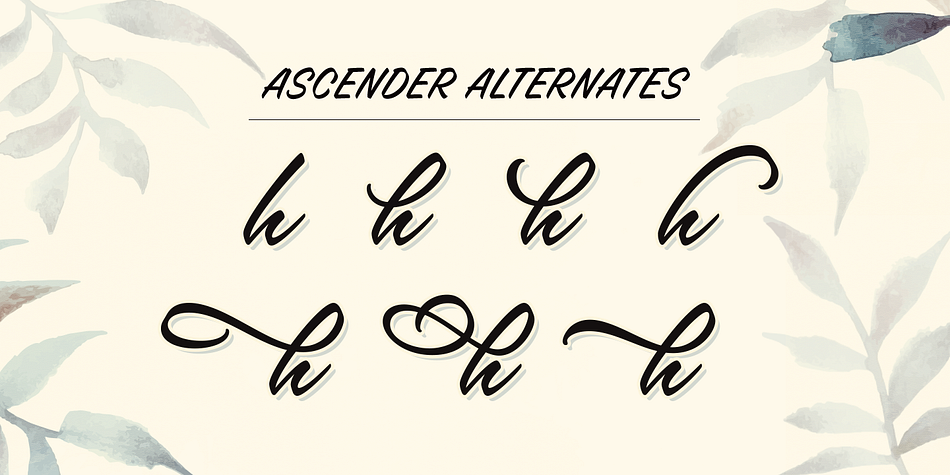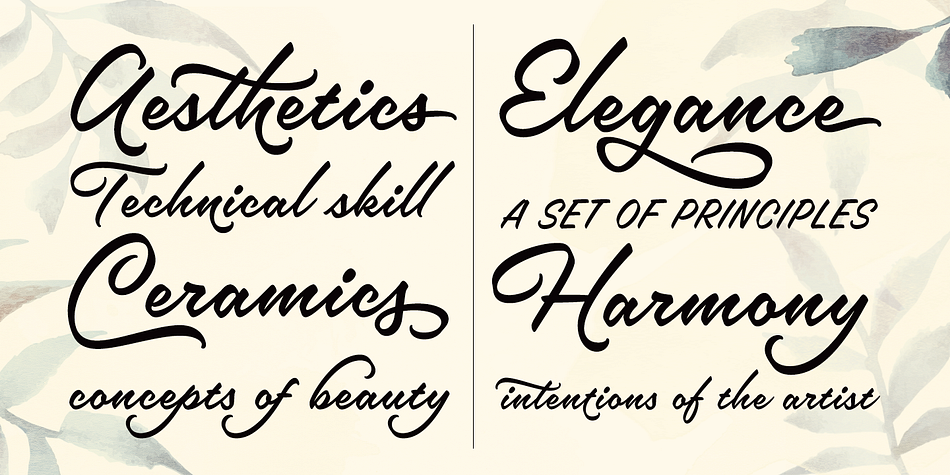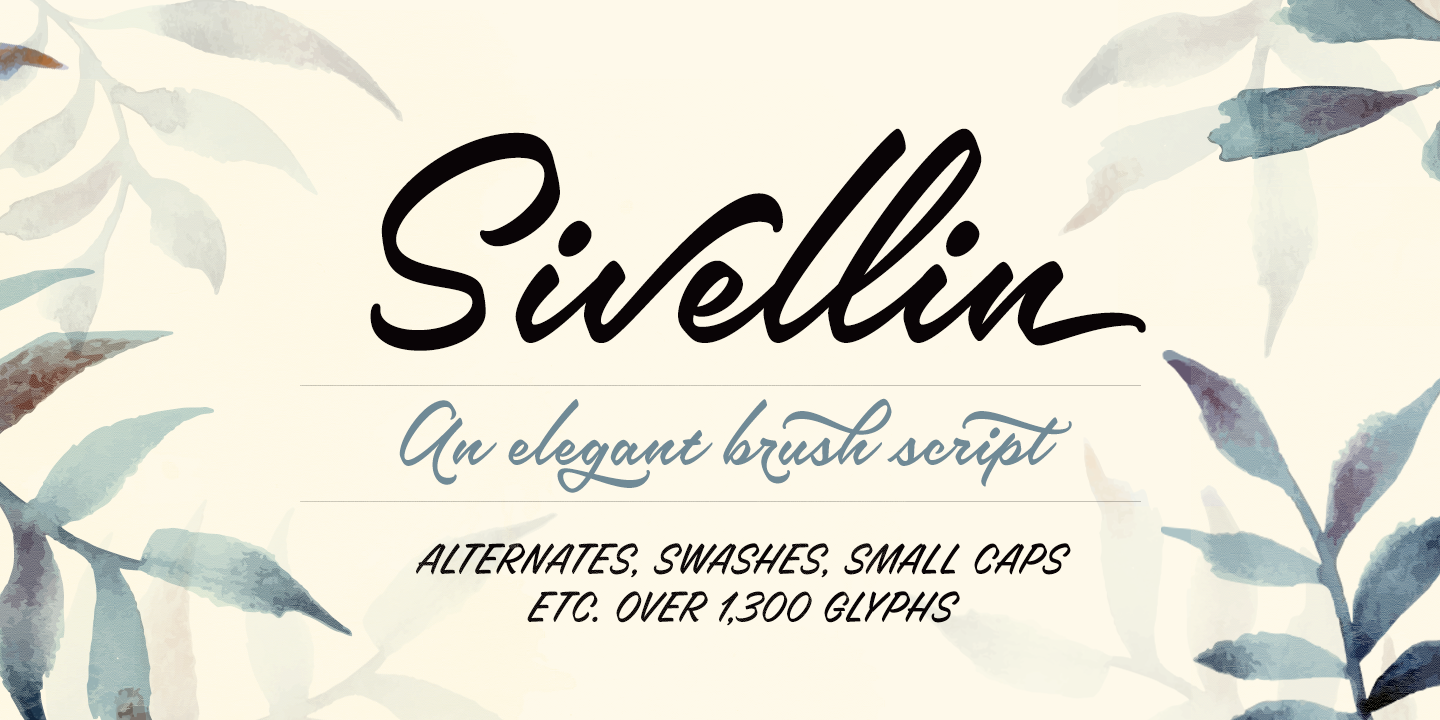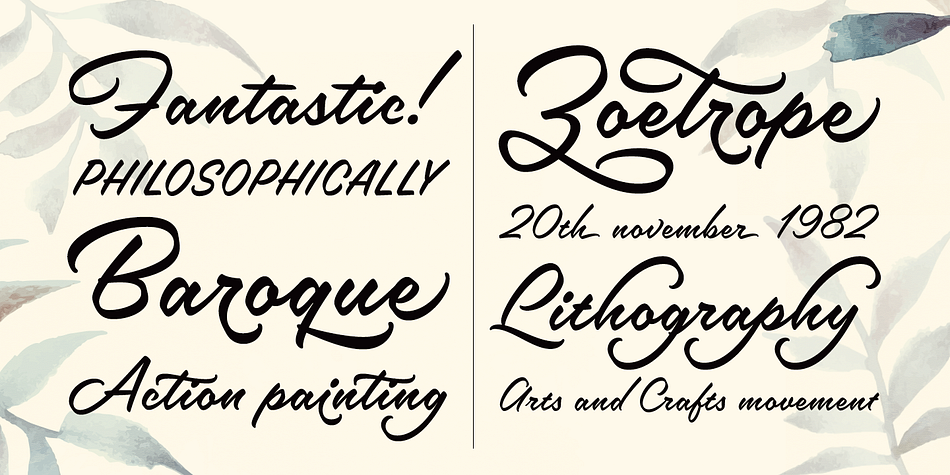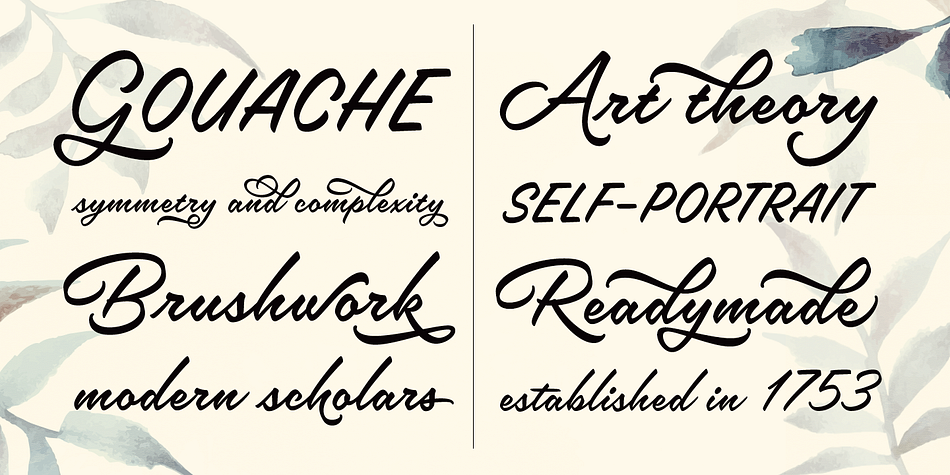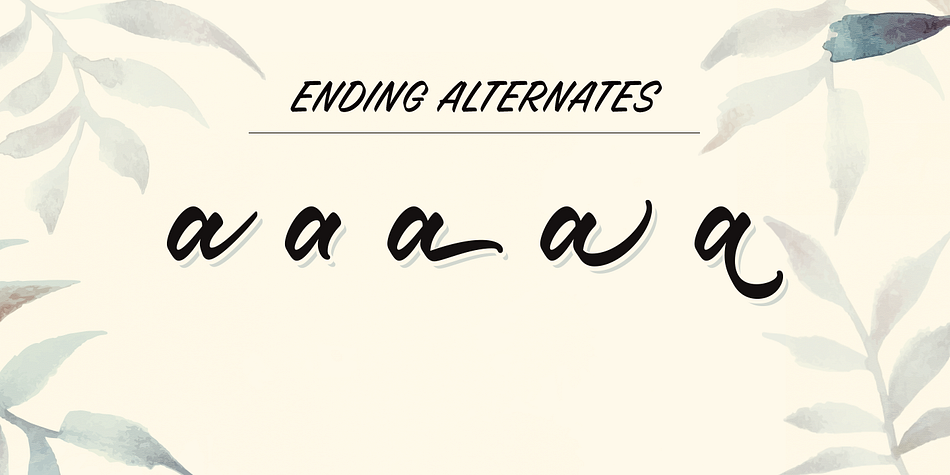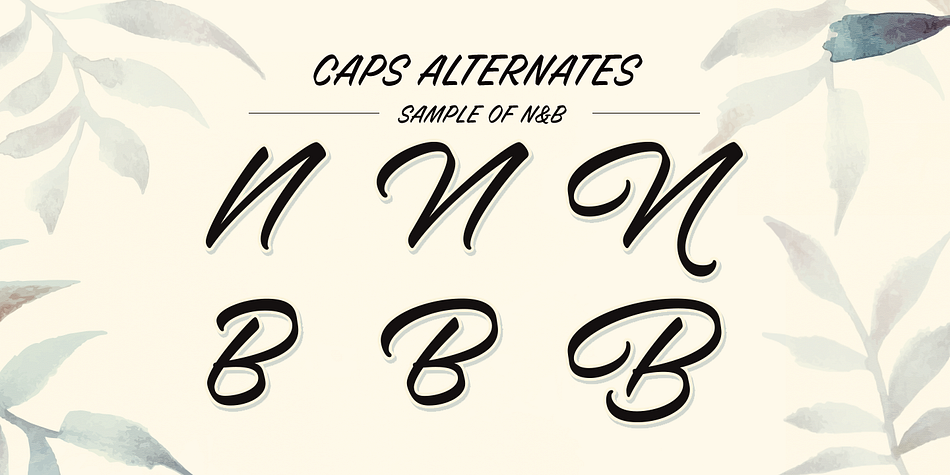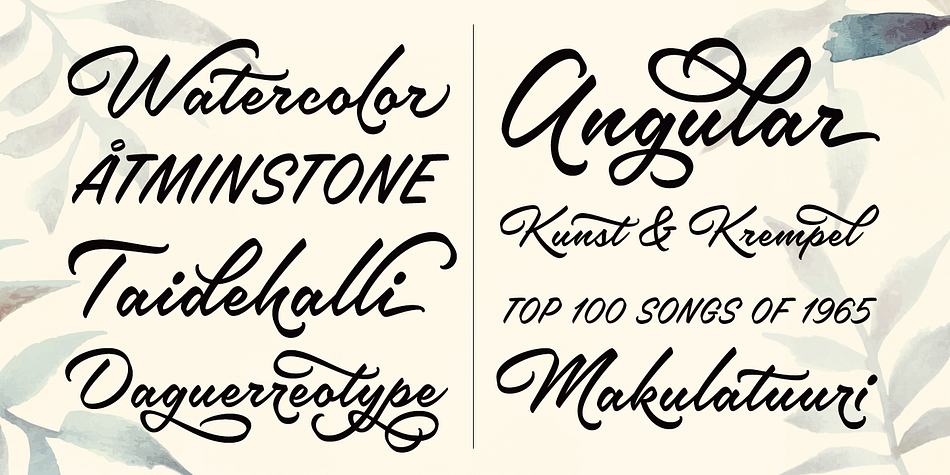
Sivellin is a brush script font published by Mika Melvas.
Sivellin is an elegant brush script with lots of alternates, swashes and small caps. All in all, it has over 1,300 glyphs. Sivellin has round and soft letterforms, low x-height and quite a generous spacing to get that elegant and very legible result.
Because of all the alternates Sivellin is very versatile script font. It can look very straightforward or with added Swashes very flamboyant. Or something between. It gives you options to customize your typography and designs the way you like.